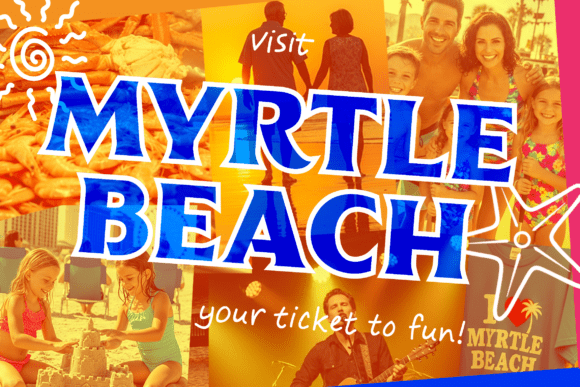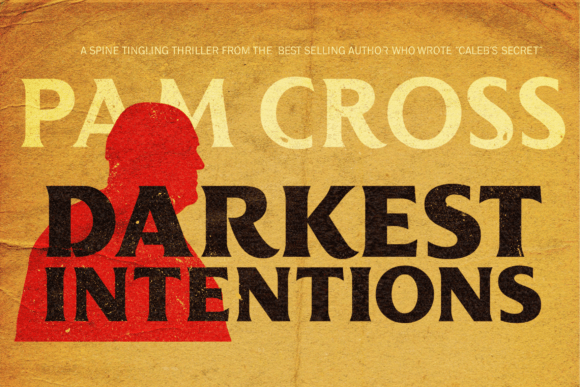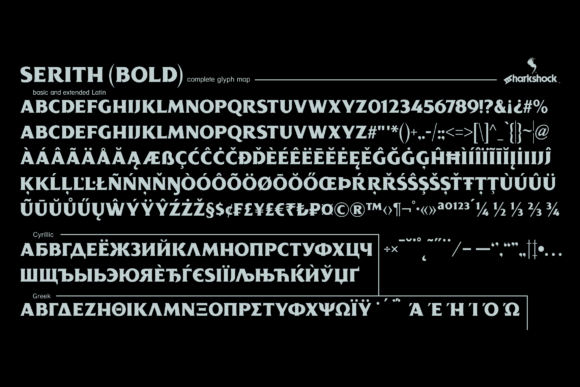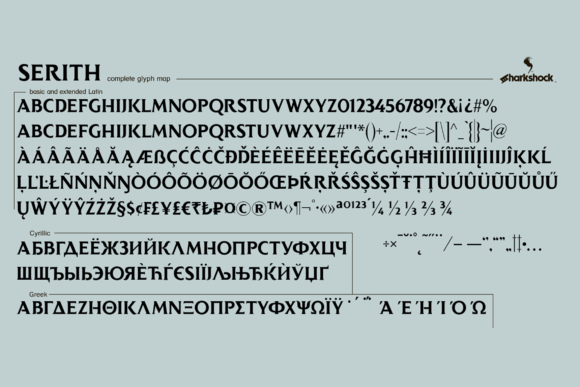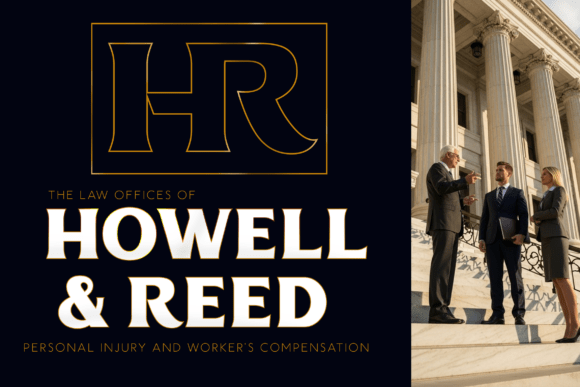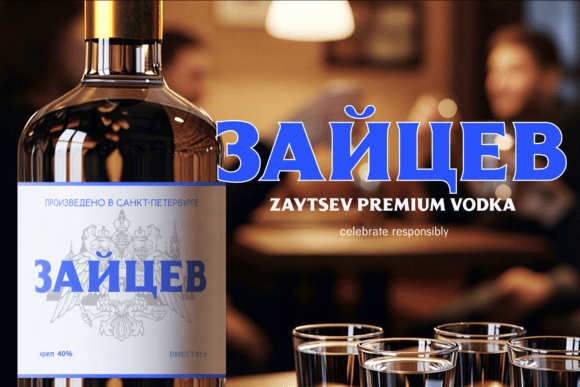
Introduction to Serith Font
Serith is an all caps display font featuring a sharp, chiseled appearance.
Inspiration came from various works with roots reaching back to the days of Greek engraving This family is defined by wispy serifs, a high contrast, and a tendency for negative space.